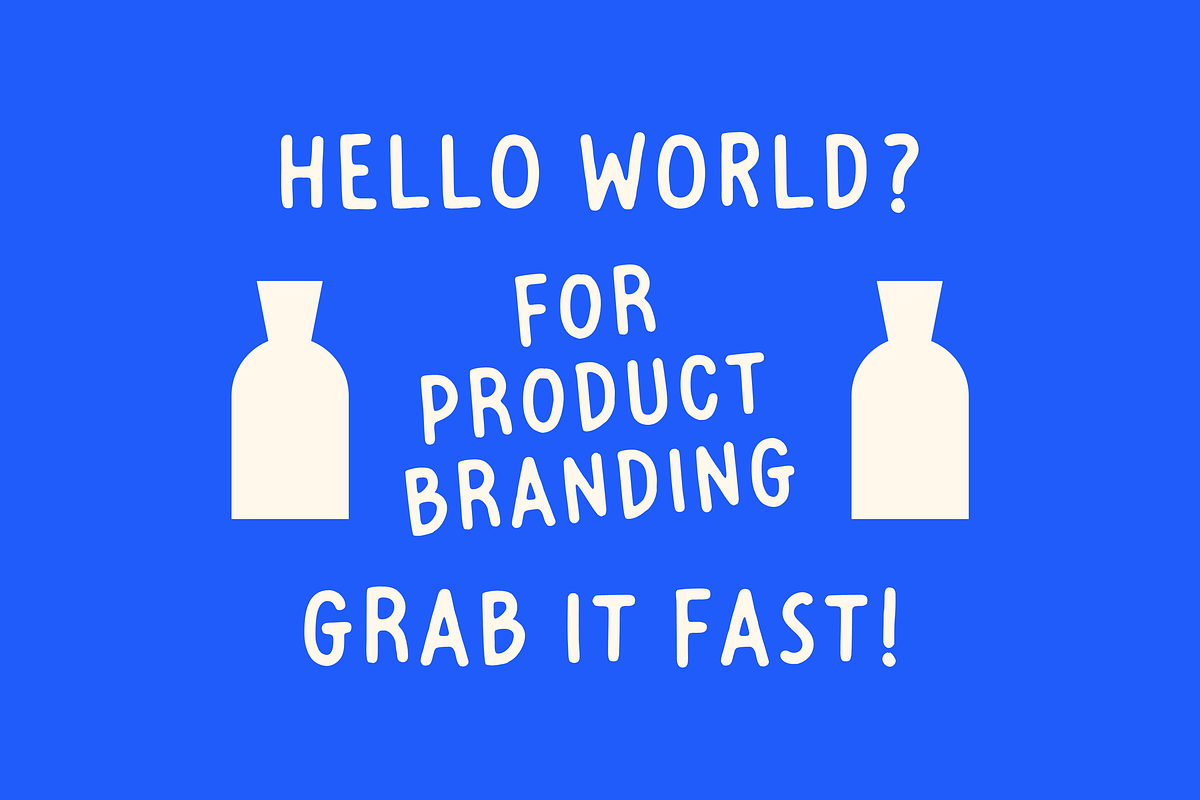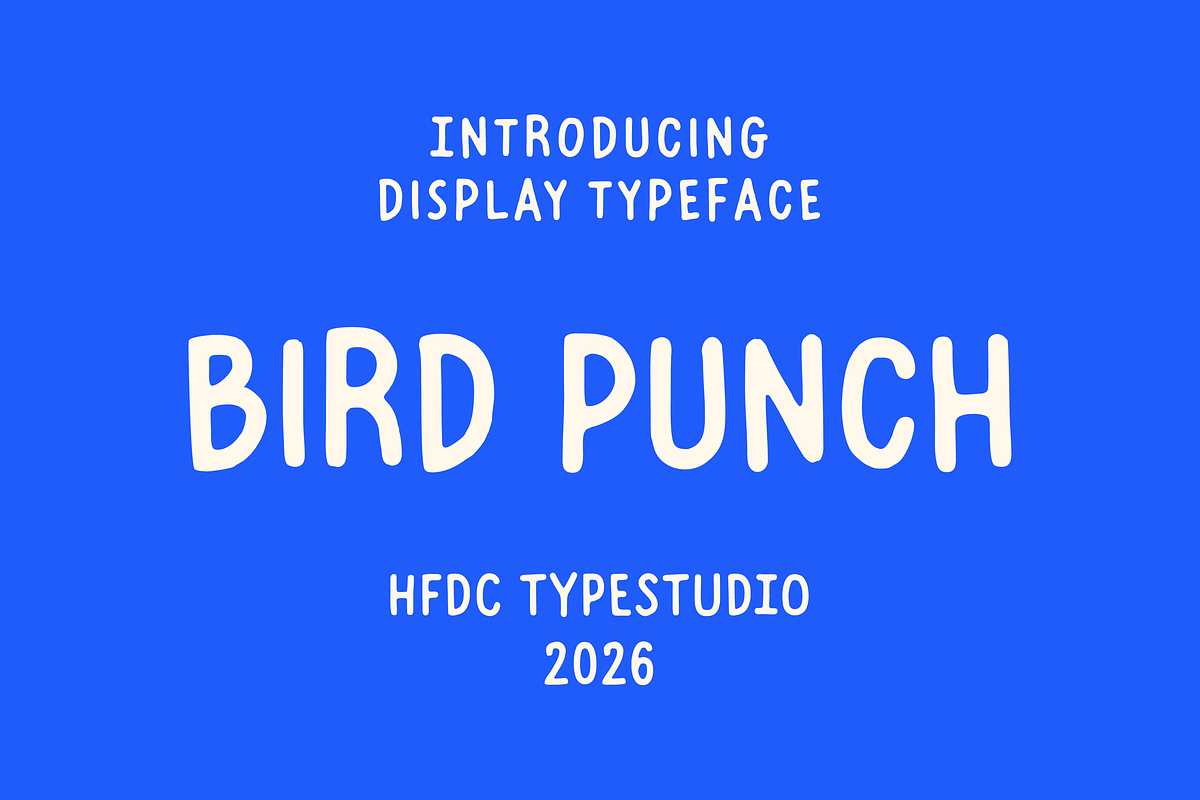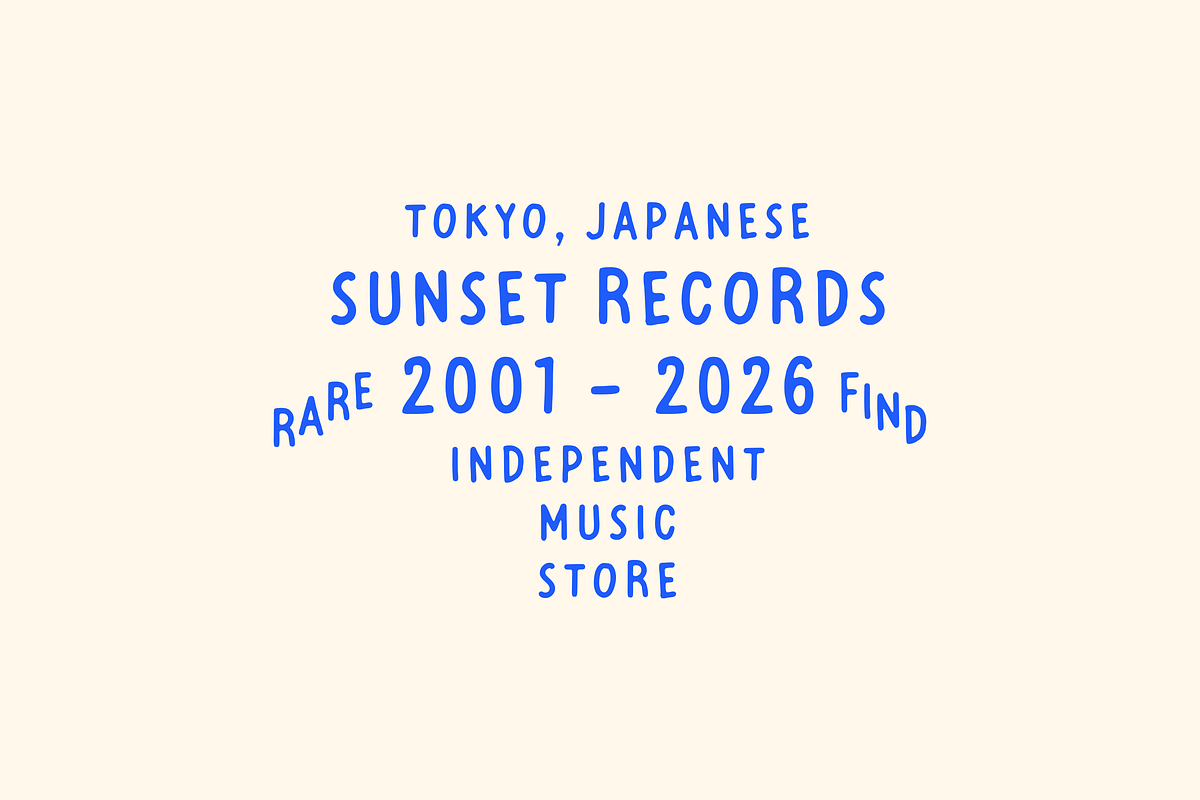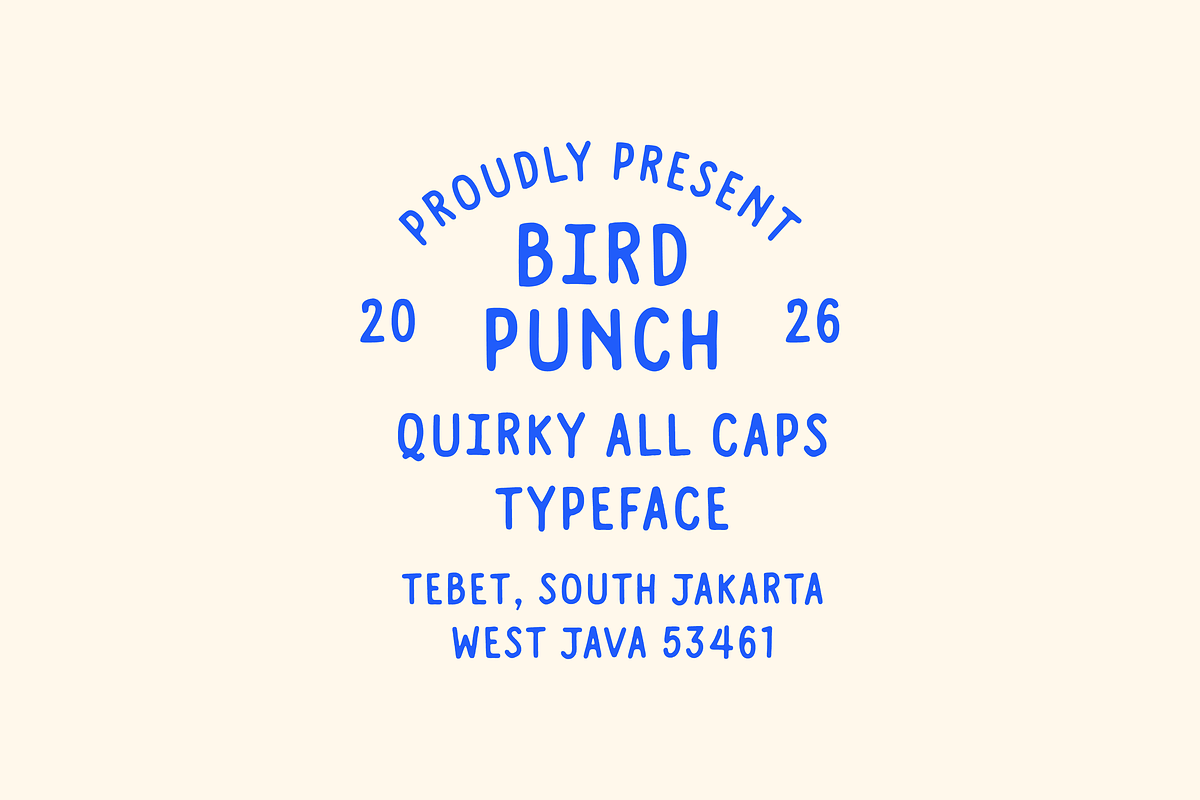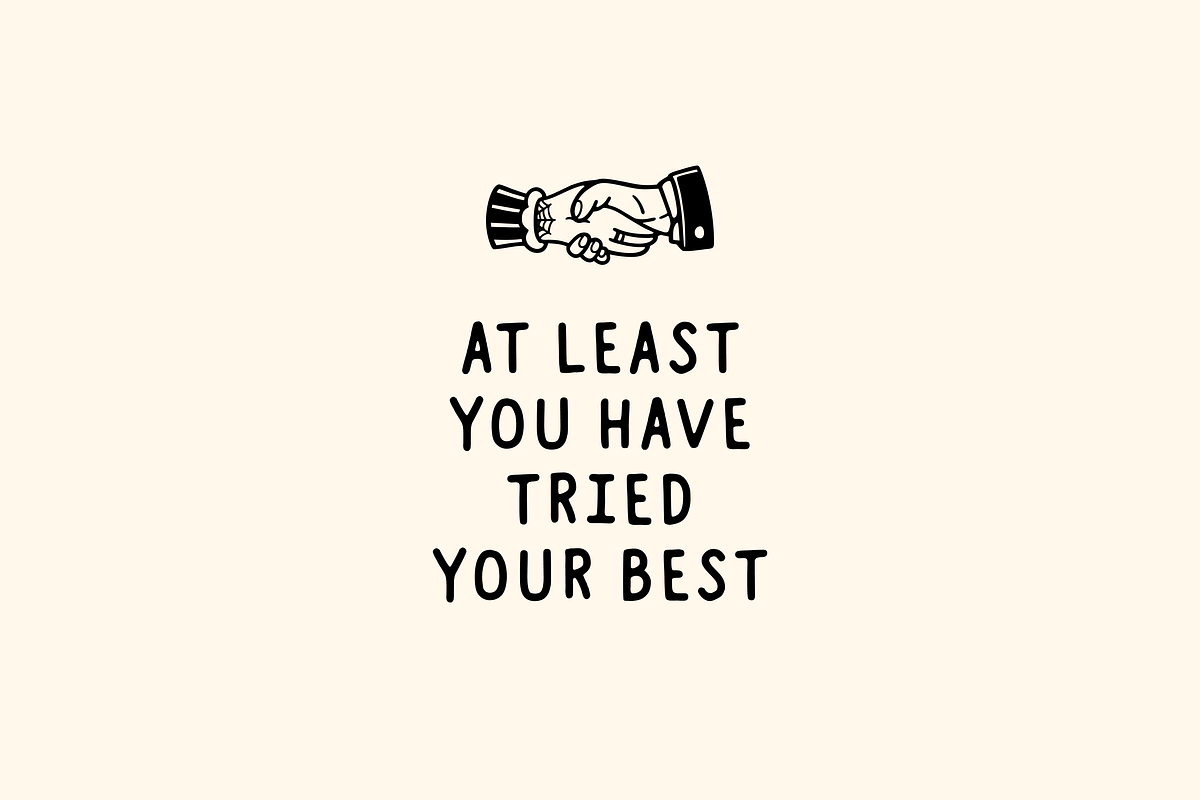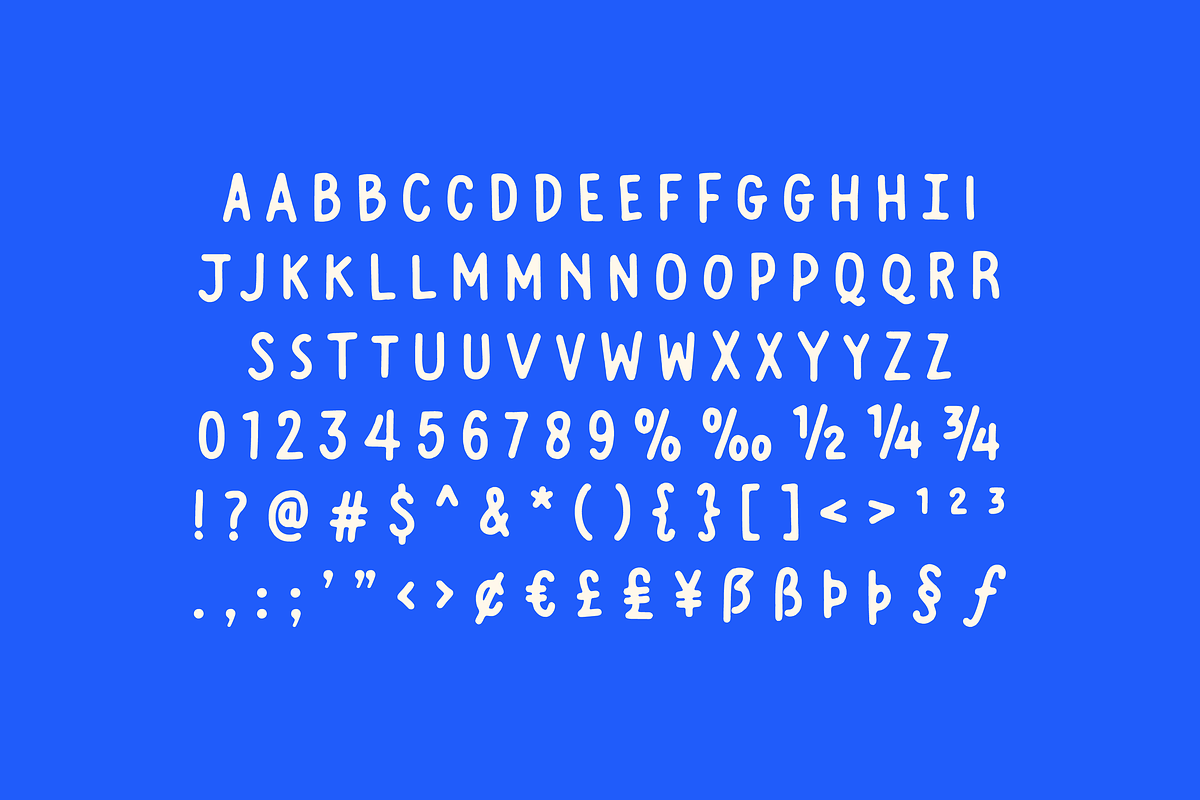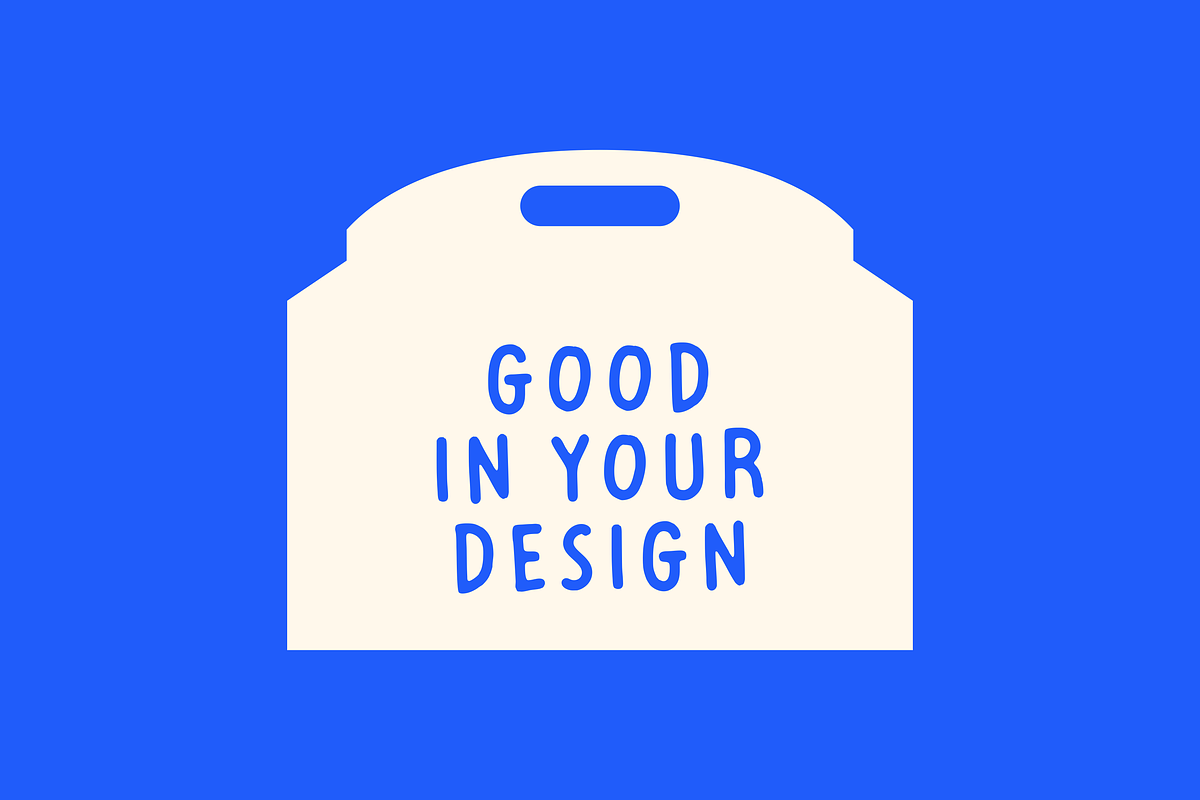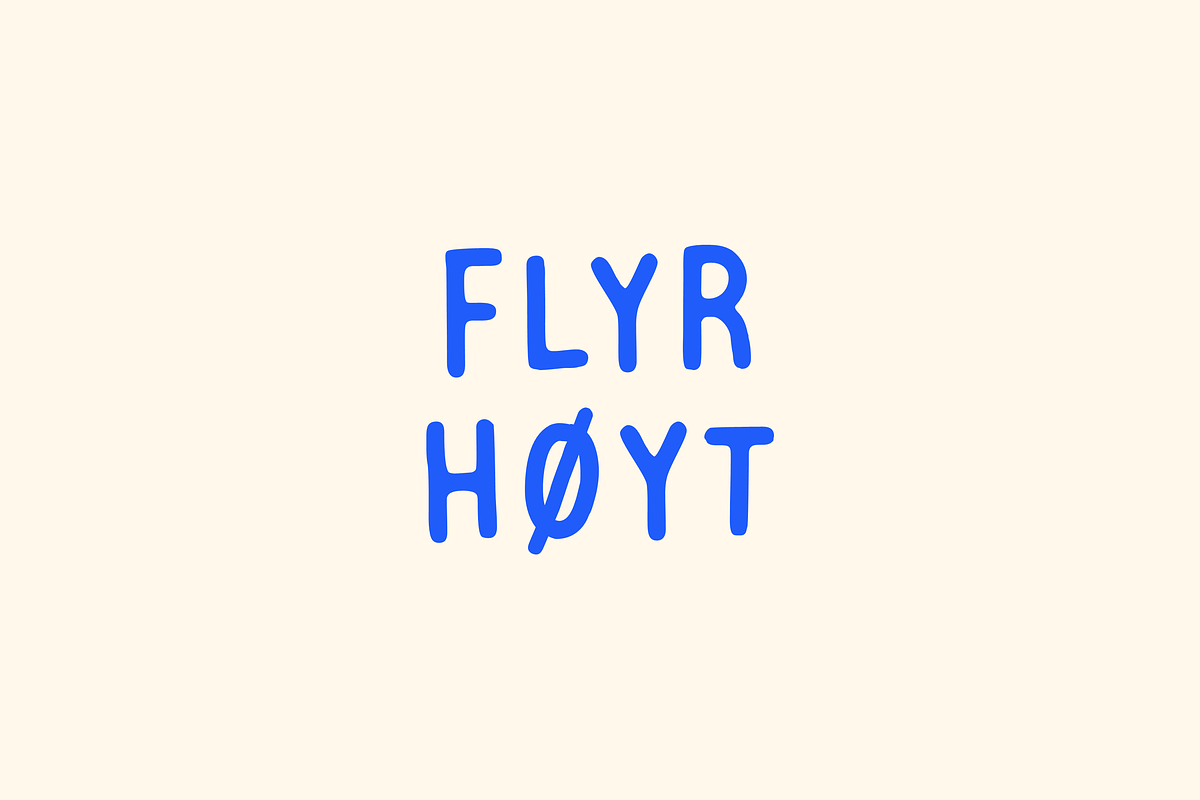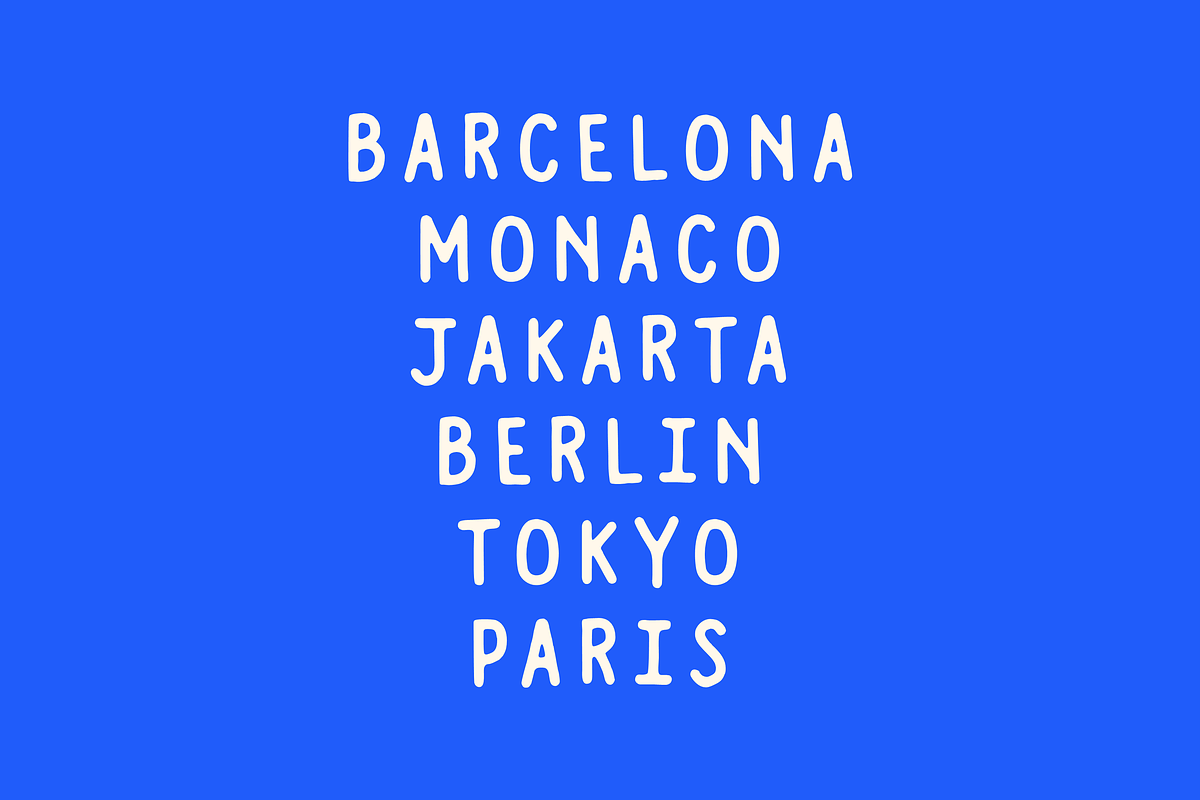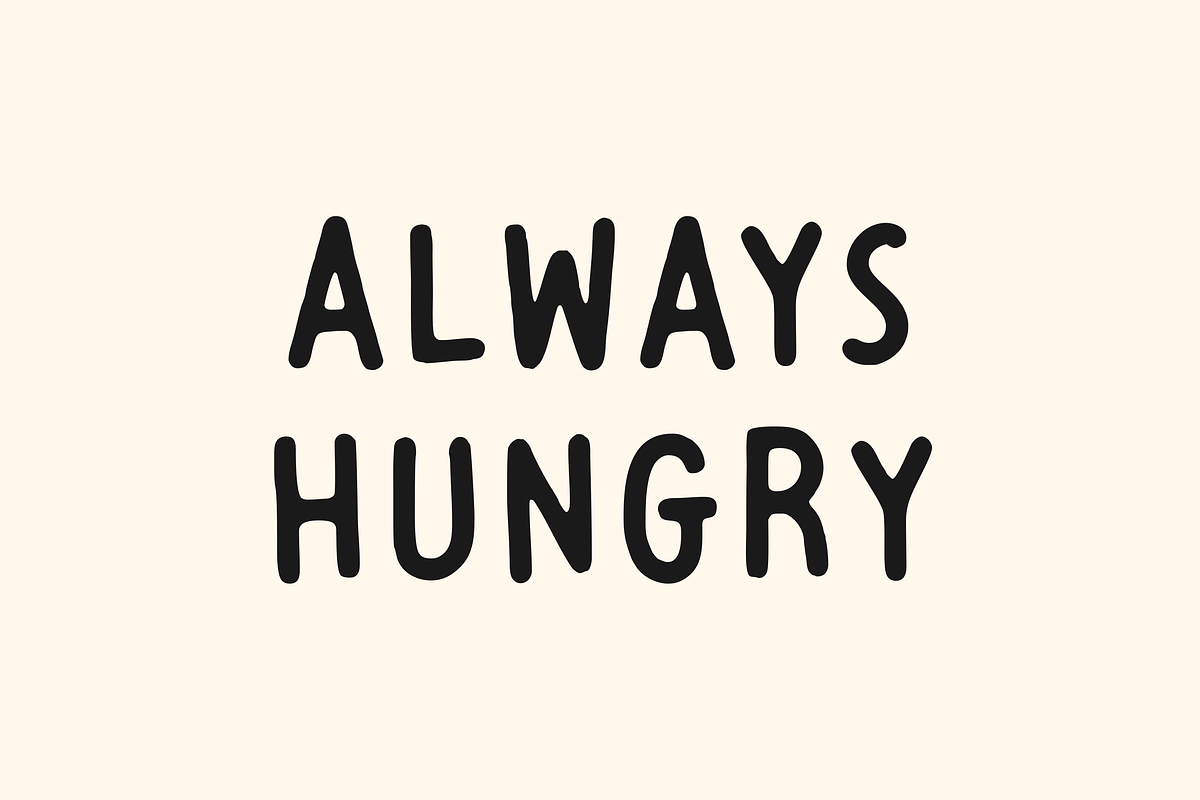
Bird Punch Handwritten
Bird Punch is the perfect blend of playfulness and creativity, designed to make your projects stand out with its quirky, brush-like strokes. This all-caps display font exudes a unique handwriting vibe that captures attention and sparks joy, making it an ideal choice for logos, posters, packaging, and branding. Whether you’re crafting a book cover or designing eye-catching promotional materials, Bird Punch’s distinctive character and charm will bring your vision to life.
Featuring a robust glyph set of over 200+ characters, Bird Punch offers versatile styling options with ligatures, stylistic alternates, and decorative swashes. This ensures that your text not only conveys your message but does so with personality and flair. Available in TTF, OTF, WOFF, and WOFF2 formats, it is suitable for various applications, from digital to print. Embrace the whimsical essence of Bird Punch and elevate your creative projects to new heights with a typeface that truly resonates.
- All caps character